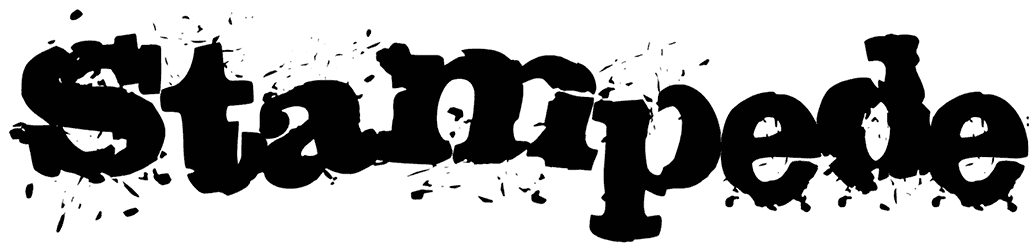
Stampede Font
Designed byManfred Klein
You want to spice up your designs, however, you don’t want to utilize the same old destroyed fonts as everyone else. Stampede allows you to create eye-catching designs that will set your work apart from the crowd.
Despite the absence of numerals, you can add some edge to your posters, headlines, logos, and other designs with their dirty, unusual appearance. Get this destroy font and inject some personality into your designs today.